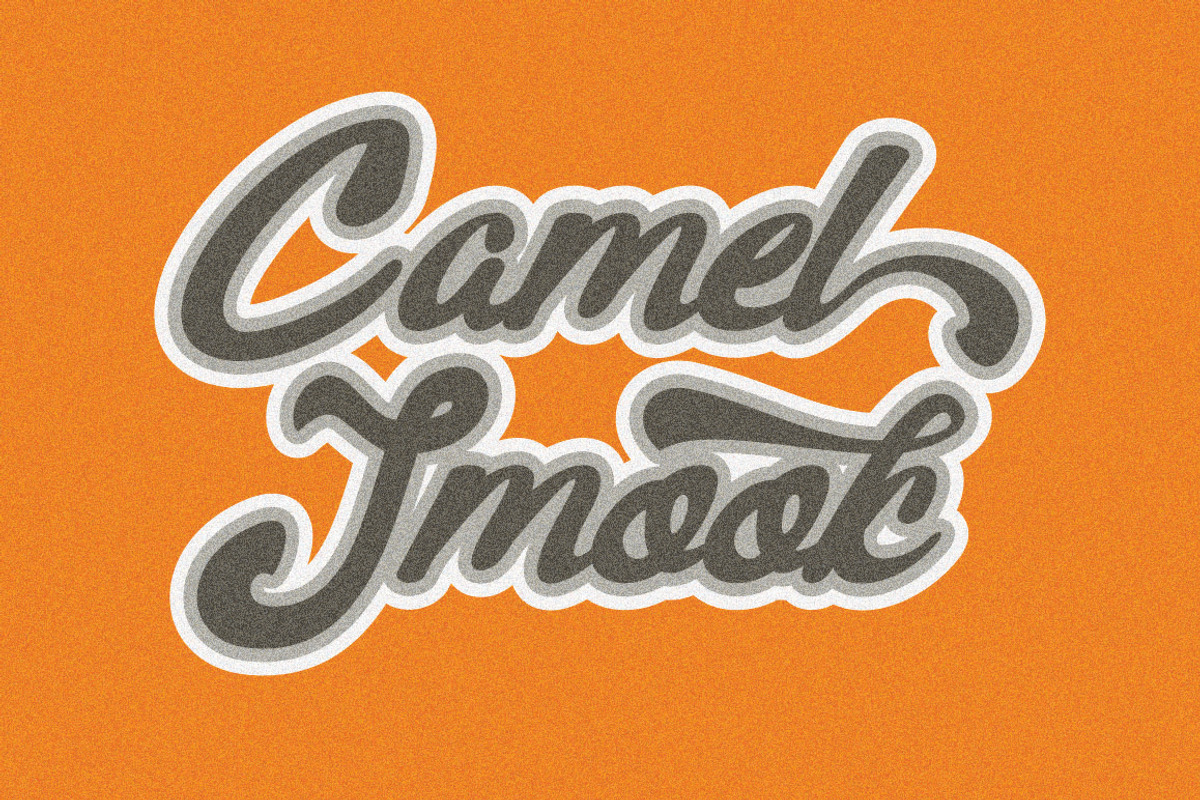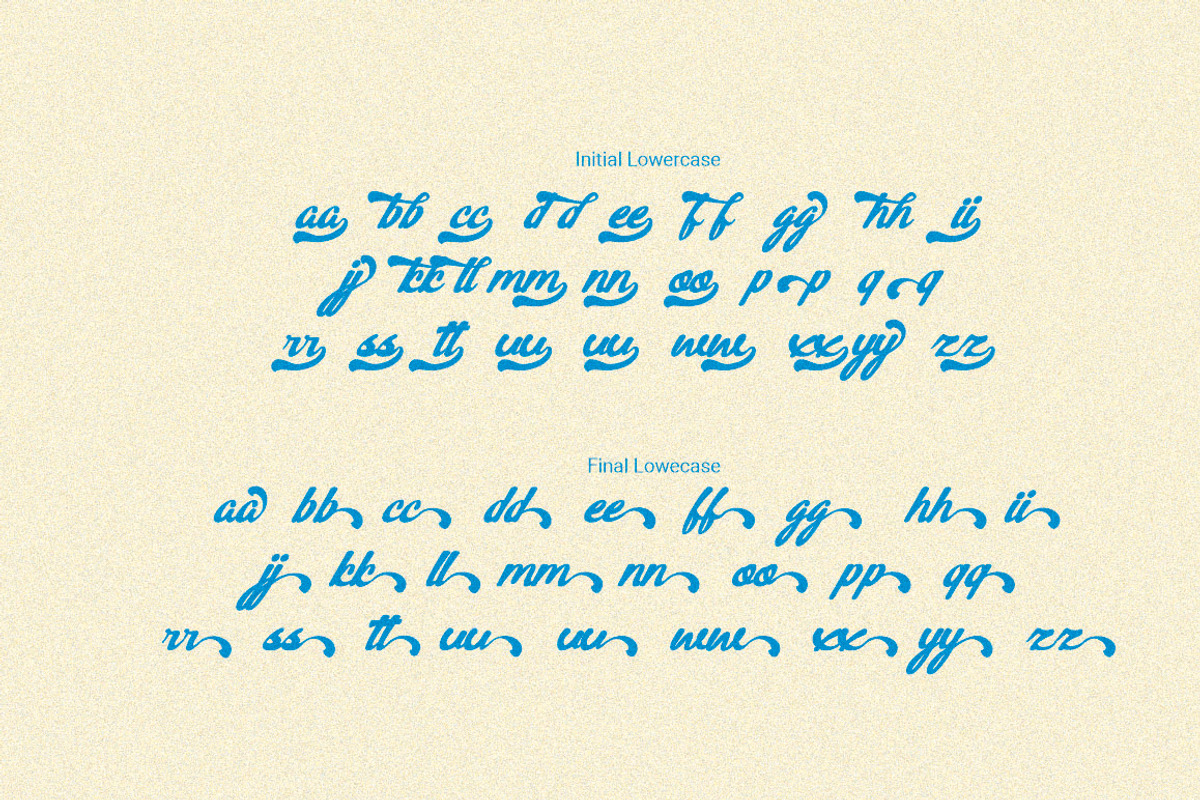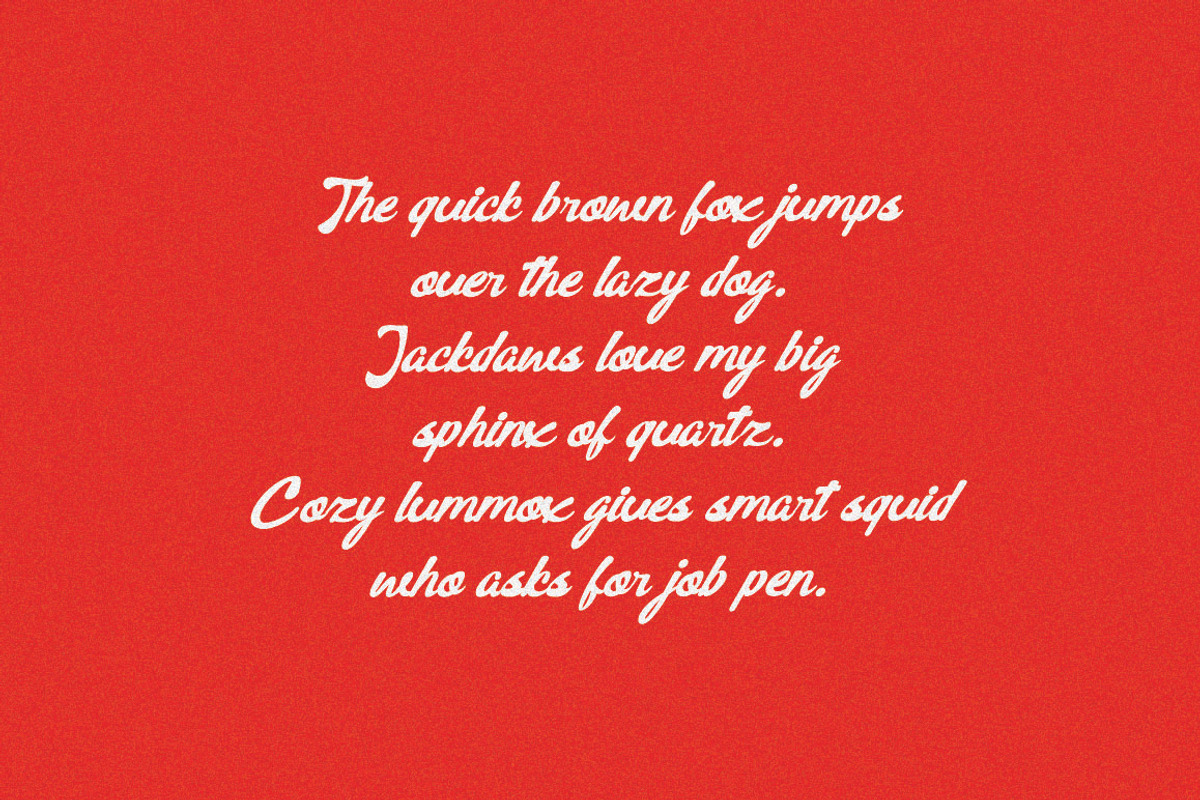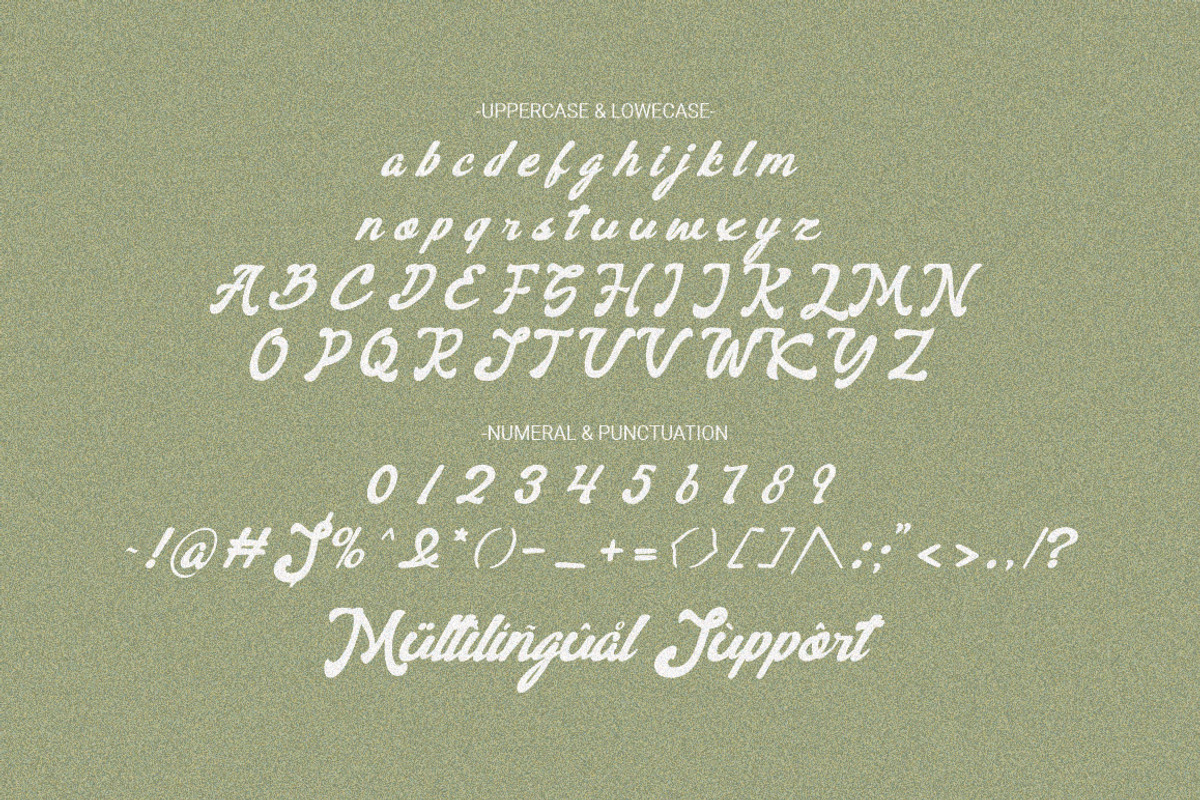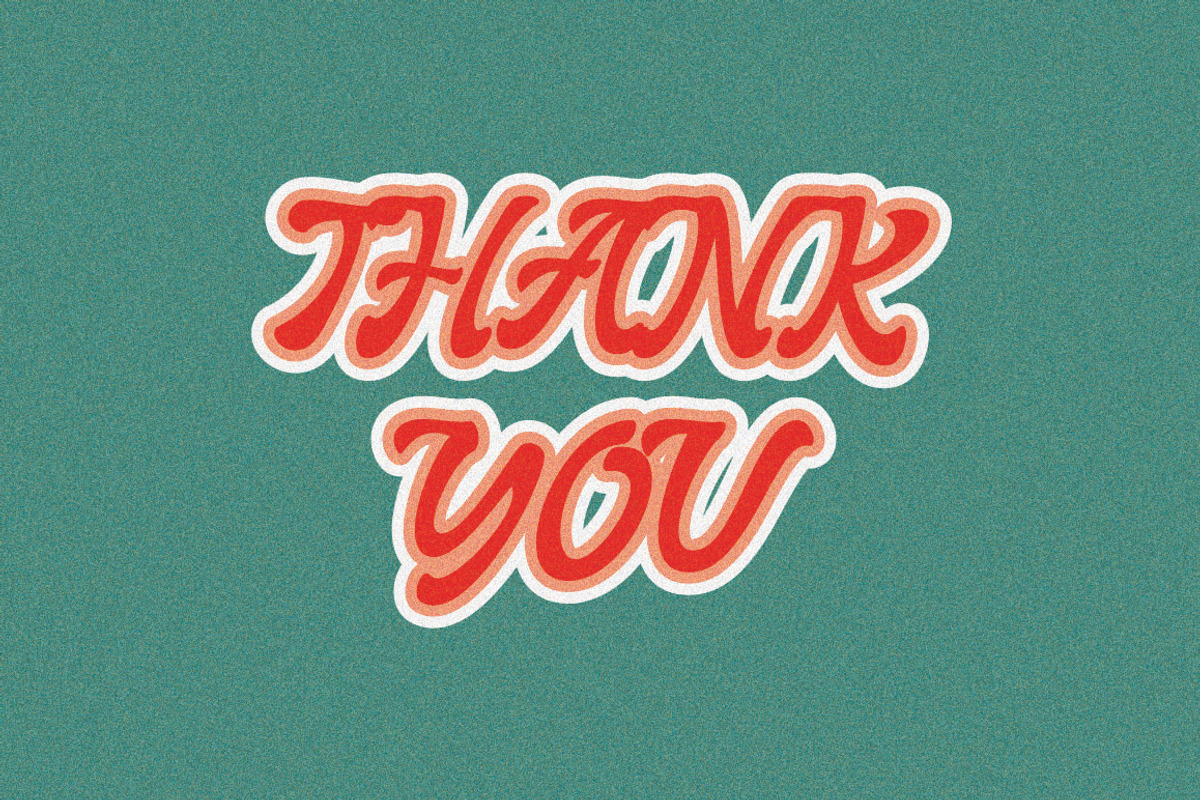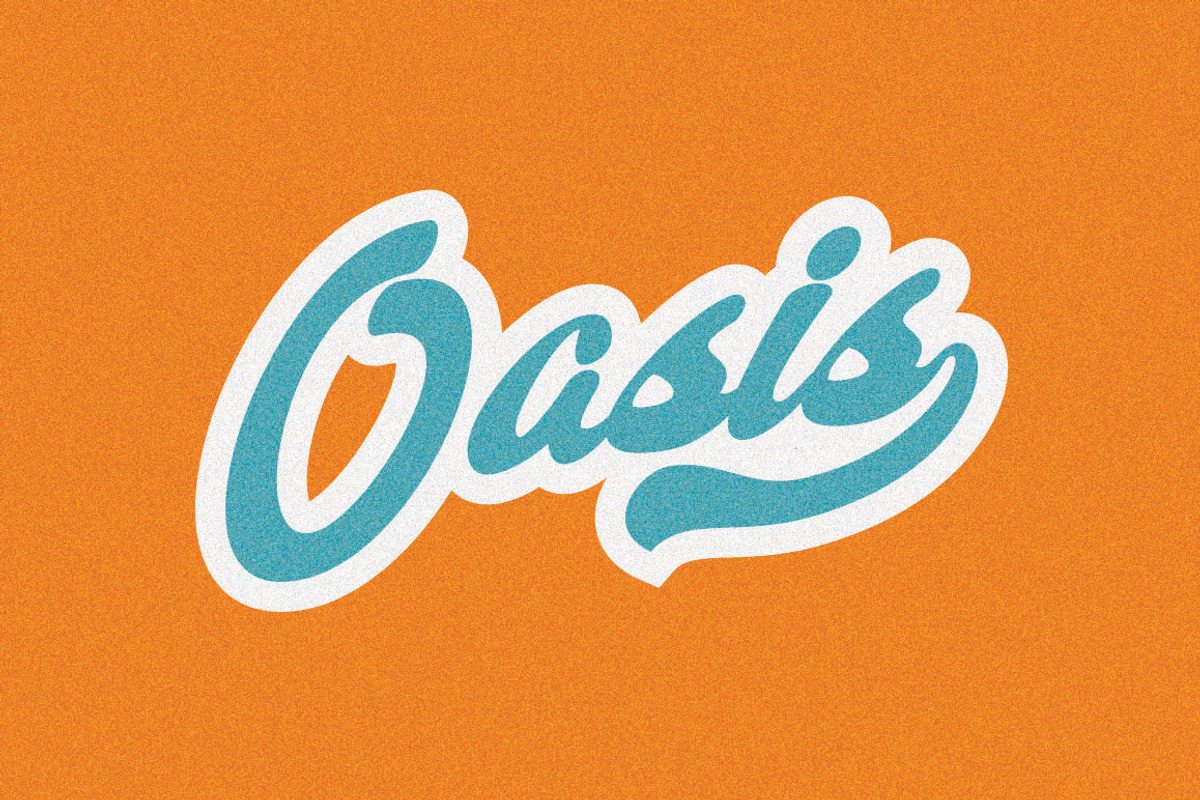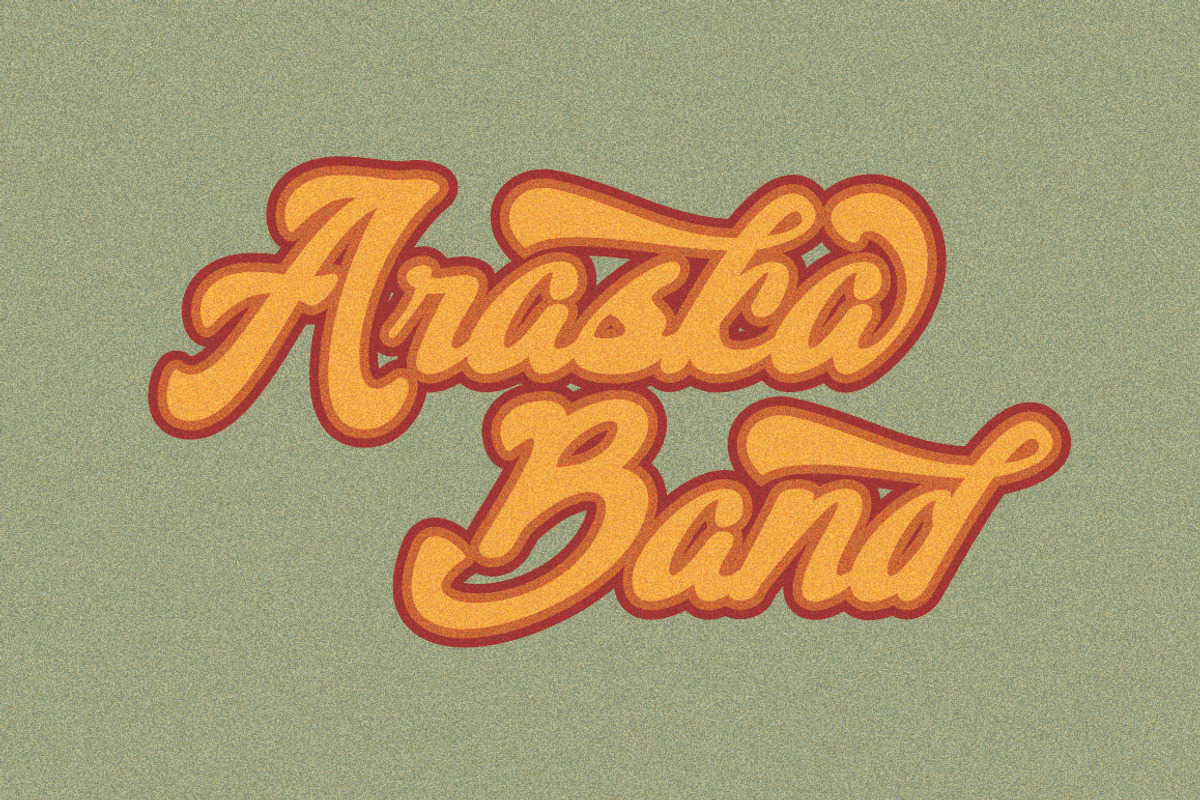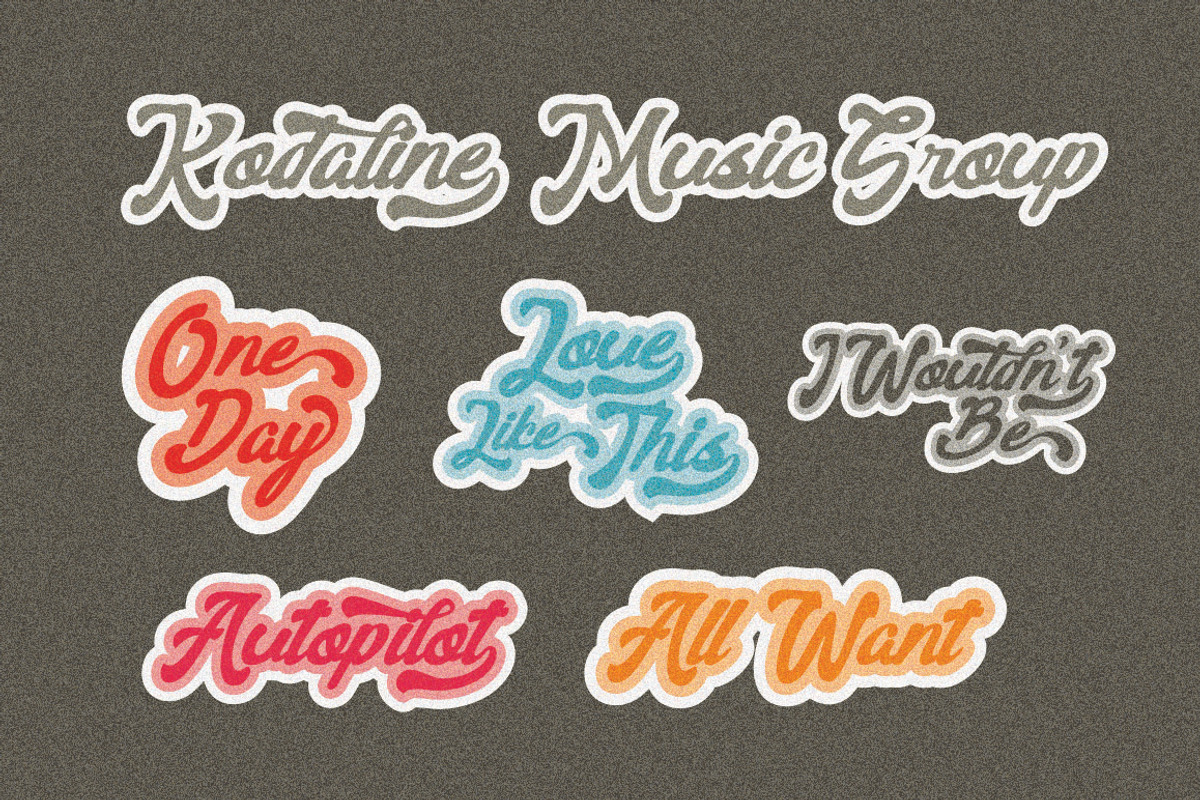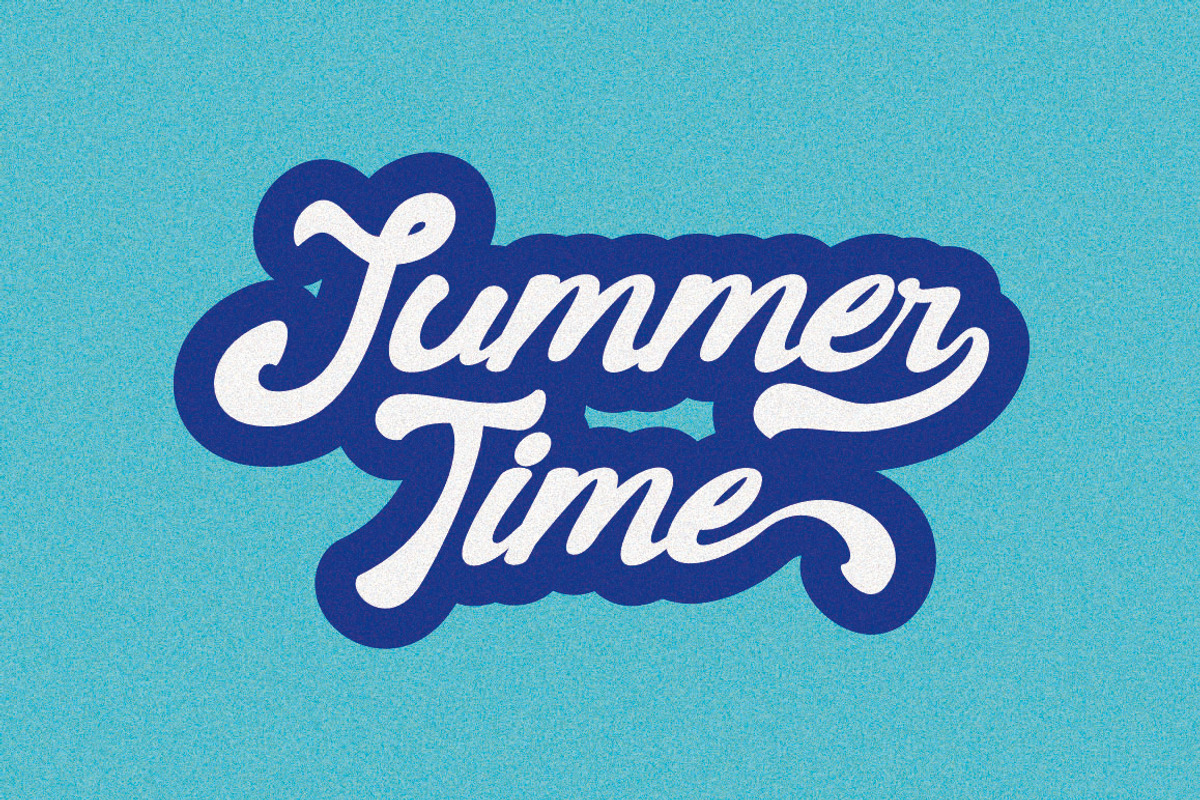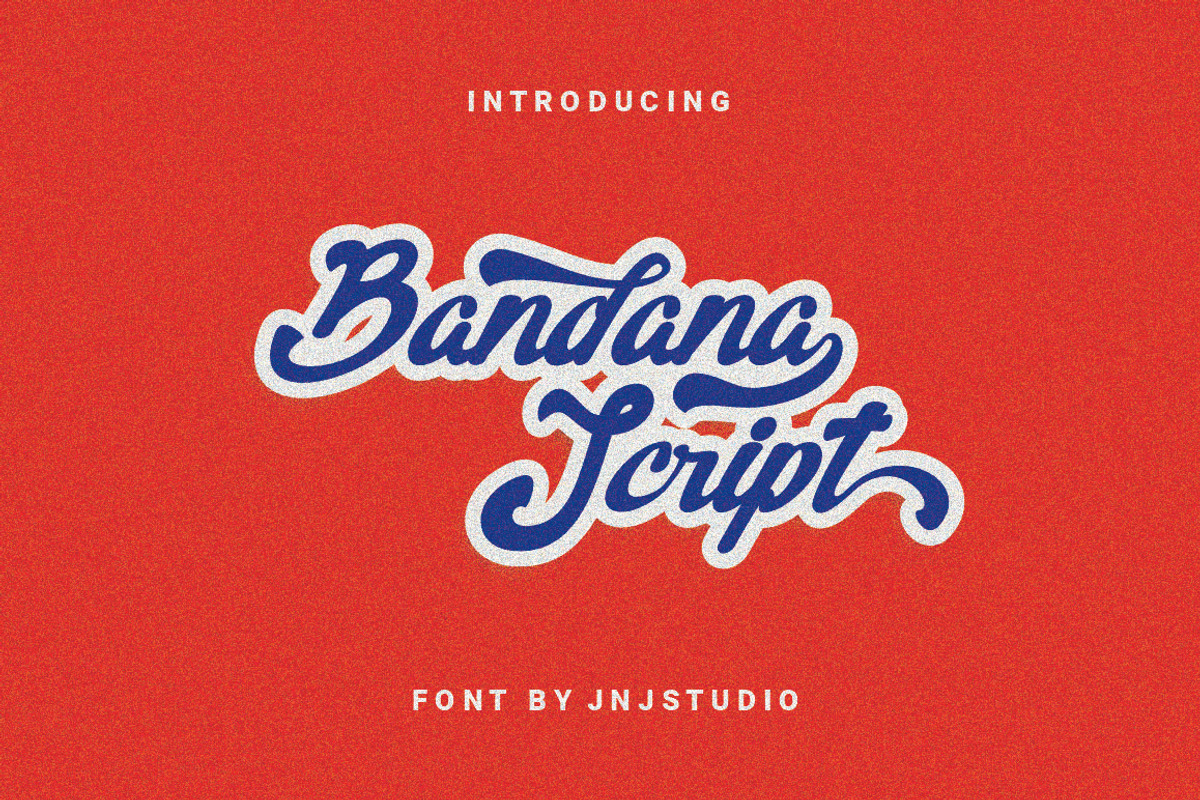
Bandana Script
Introducing "Bandana" is a beautifully crafted script font that exudes elegance and sophistication. Designed with smooth, flowing curves and graceful strokes, it brings a sense of charm and warmth to any design. Its hand-lettered style makes it perfect for branding, invitations, logos, packaging, and more.
This script font features a perfect balance between modern calligraphy and classic cursive, making it versatile for both formal and casual designs. The carefully designed ligatures and alternates add a natural handwritten touch, enhancing its aesthetic appeal.
Ideal for those who seek a stylish and timeless typeface, Bandana is sure to elevate your creative projects with its refined and artistic flair.
- Initial & Final Lowercase